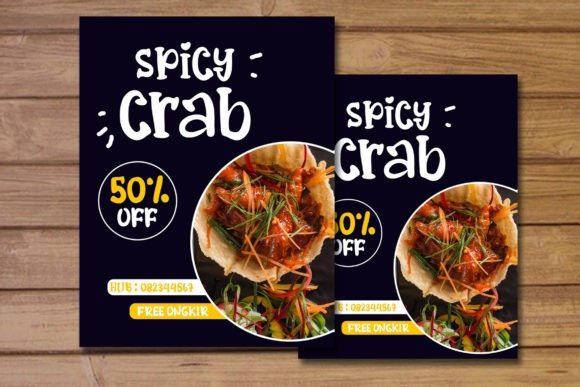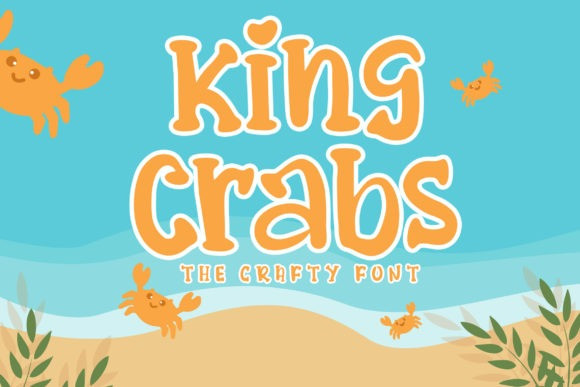
King Crabs Font
King Crabs Font is a trendy and playful display font. Add it to each of your party invitation, gathering or pretty much any design that requires a touch of youth and joy.